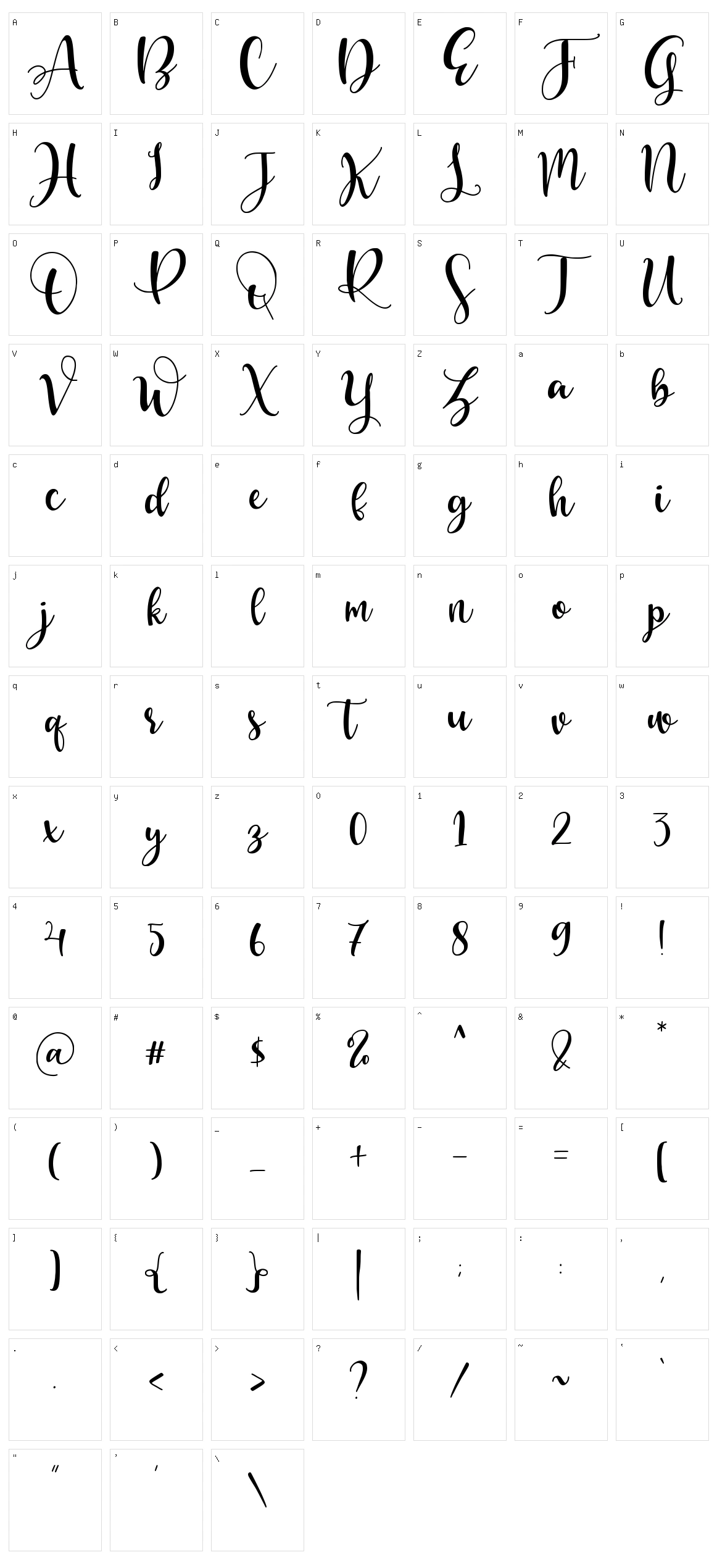
OLIVIA MIRNA
- Romantic Calligraphy Font -
Olivia Mirna is a beautiful handwritten font. Itâs playfulness make it great for creative projects,
be it inspirational wall posters or for communicating your brand.